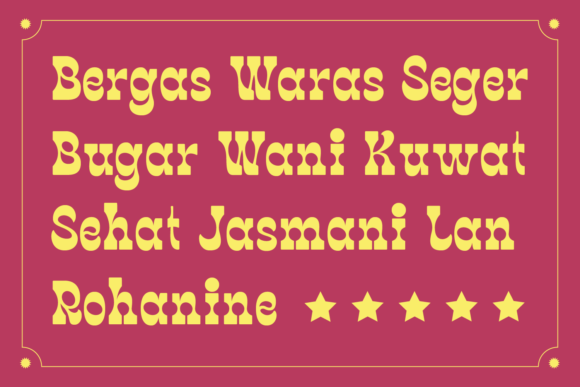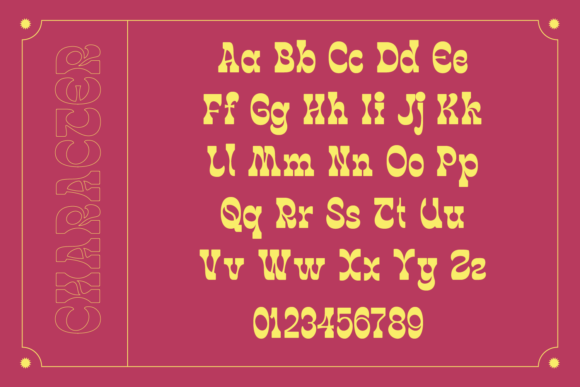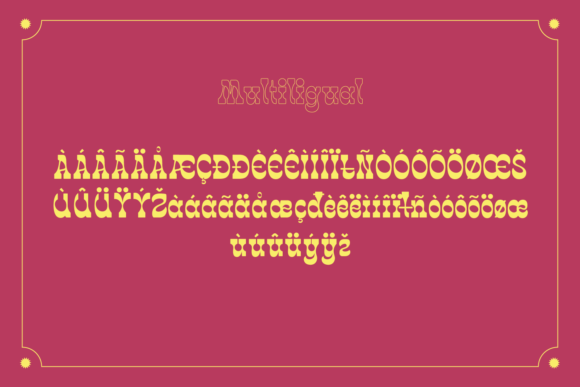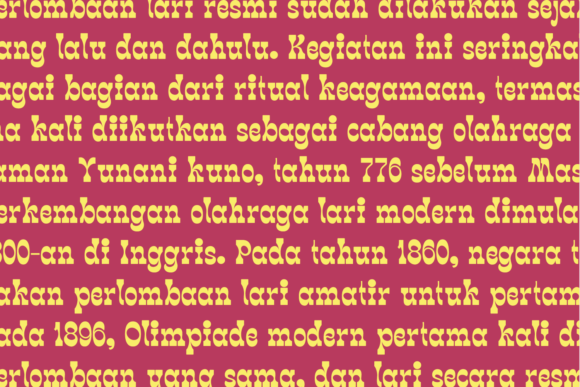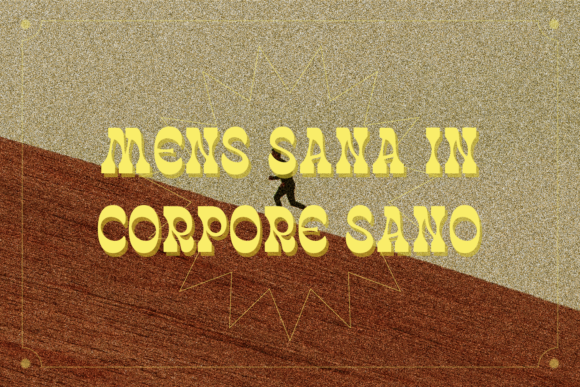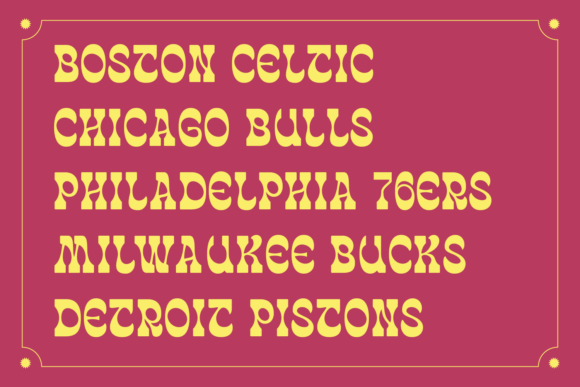
Bergas Font: A Whimsical and Wavy Display Font for Creative Designs
Are you looking for a font that can add a playful and whimsical touch to your designs? Look no further than Bergas Font! This cool and wavy display font is perfect for cartoon-related designs, children’s games, and any creation that requires a lovely and eye-catching element. In this article, we’ll dive into the features and benefits of Bergas Font, and explore how you can use it to take your designs to the next level.
What is Bergas Font?
Bergas Font is a unique and creative display font that features a wavy and whimsical design. Its irregular curves and playful lines make it perfect for designs that require a fun and carefree touch. Whether you’re creating a logo, a poster, or a digital graphic, Bergas Font is sure to add a touch of personality and style to your work.
Key Features of Bergas Font
• Whimsical Design: Bergas Font features a unique and whimsical design that is sure to grab attention.
• Wavy Lines: The font’s irregular curves and wavy lines add a playful touch to any design.
• Display Font: Bergas Font is a display font, making it perfect for headlines, titles, and other prominent text elements.
• Cool and Playful: The font’s cool and playful design makes it perfect for cartoon-related designs, children’s games, and other creative projects.
Benefits of Using Bergas Font
So why should you choose Bergas Font for your designs? Here are just a few benefits of using this amazing font:
• Adds a Playful Touch: Bergas Font adds a playful and whimsical touch to any design, making it perfect for creative projects.
• Unique and Eye-Catching: The font’s unique design makes it stand out from more traditional fonts, adding a touch of personality to your work.
• Versatile: Bergas Font can be used for a wide range of designs, from logos and posters to digital graphics and children’s games.
• Easy to Read: Despite its playful design, Bergas Font is easy to read, making it perfect for use in headlines and titles.
How to Use Bergas Font in Your Designs
So how can you use Bergas Font in your designs? Here are a few ideas to get you started:
• Cartoon-Related Designs: Use Bergas Font to add a playful touch to cartoon-related designs, such as character logos or animated videos.
• Children’s Games: The font’s whimsical design makes it perfect for use in children’s games, such as puzzle titles or game interfaces.
• Posters and Flyers: Use Bergas Font to add a touch of personality to posters and flyers, such as event promotions or product advertisements.
• Digital Graphics: The font’s unique design makes it perfect for use in digital graphics, such as social media graphics or website headers.
Tips for Getting the Most Out of Bergas Font
Here are a few tips for getting the most out of Bergas Font:
• Use it Sparingly: Bergas Font is a display font, so use it sparingly to add emphasis to key text elements.
• Experiment with Colors: The font’s playful design makes it perfect for use with bright and bold colors.
• Pair it with Other Fonts: Bergas Font pairs well with other fonts, such as sans-serif fonts or script fonts.
In conclusion, Bergas Font is a cool and whimsical display font that is perfect for adding a playful touch to your designs. Its unique and eye-catching design makes it stand out from more traditional fonts, and its versatility makes it perfect for use in a wide range of creative projects. Whether you’re a designer, crafters, or DIY enthusiast, Bergas Font is sure to become a favorite in your font collection.